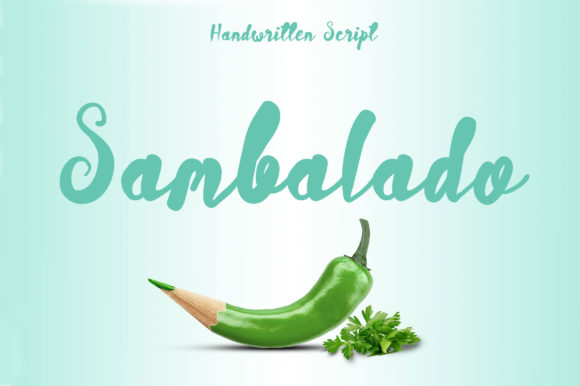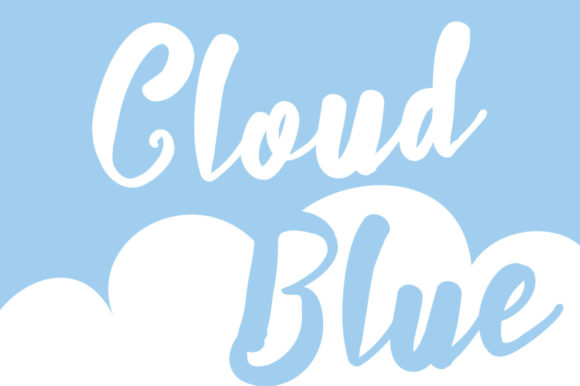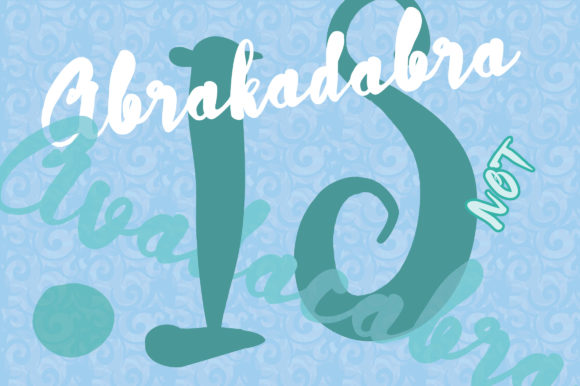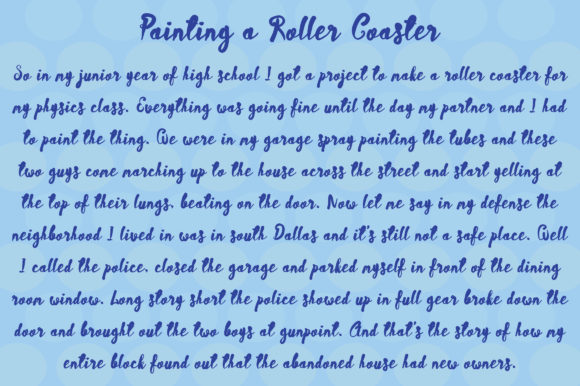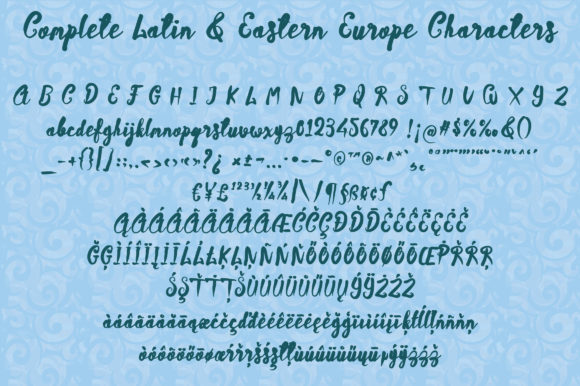
Sambalado Script Font
About Sambalado Script Font
The Sambalado is a cute brush script. It has a bold weight with a textured shape.
It’s perfect for wedding invitations. product packages, logos, titles, flyers, and much more!